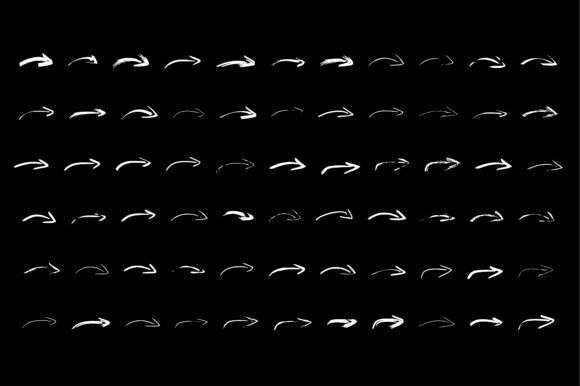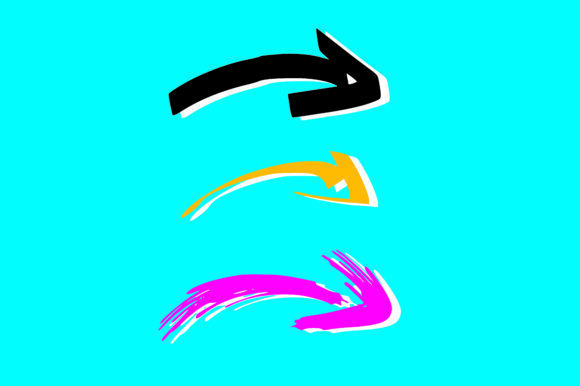
BM Graphics – Arrows Font
About BM Graphics – Arrows Font
A set of 75 different arrow glyphs in a wide range of styles and designs can be an incredibly useful resource for various design projects. Here are some ways you can make the most of this versatile collection:
1. Graphic Design: Incorporate the arrow glyphs into your graphic design projects to add visual interest and guide the viewer’s attention. Use arrows to indicate direction, movement, or call-to-action elements in posters, banners, brochures, and other promotional materials.
2. Web Design: Arrows are commonly used in web design to indicate navigation menus, buttons, or links. With a diverse range of arrow styles and designs, you can create unique and visually appealing navigation elements that enhance the user experience.
3. User Interface (UI) Design: When designing user interfaces for websites or applications, arrows can be used to provide intuitive cues, such as indicating sliders, dropdown menus, or expandable sections. The varied arrow glyphs in the collection allow you to choose the perfect style that aligns with the overall UI design.
4. Icon Creation: Export the arrow glyphs as individual icons for use in various applications or websites. The collection’s wide range of styles and designs ensures that you can find an arrow icon that suits the desired aesthetic and purpose.
5. Crafts and DIY Projects: Utilize the arrow glyphs to create stencils for crafts or DIY projects. Whether you’re designing signs, cards, scrapbook layouts, or other handmade items, the arrow glyphs can add a decorative or functional touch to your creations.
6. Presentations: Enhance your presentations by incorporating the arrow glyphs to highlight key points, guide the flow of information, or add visual elements to your slides. Arrows can help in presenting processes, timelines, or step-by-step instructions.
7. Infographics: Arrows are often used in infographics to depict data flow, sequential information, or connections between different elements. The diverse arrow styles in the collection allow you to customize the visual representation of your data or concepts.
Remember to experiment with different arrow styles, sizes, and colors to match the overall design theme and purpose of your project. The extensive collection of arrow glyphs provides ample options to create impactful visuals and enhance the user experience in various design contexts.